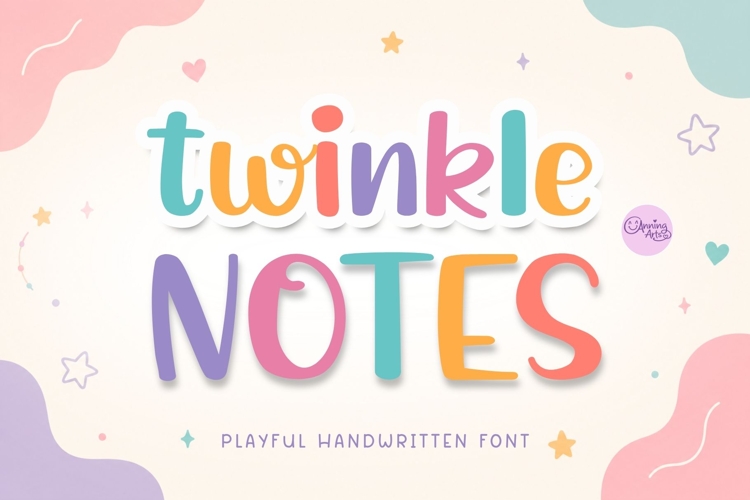
Twinkle Notes is a playful handwritten font featuring rounded letterforms, a clean handwritten style. Its simple, friendly appearance makes it easy to read while adding a fun and modern touch to any design.
The font includes uppercase, lowercase, numbers, punctuation, multilingual support, and is perfect for creating colorful typography for both print and digital projects.
Perfect for teacher resources, classroom decor, children's books, planners, journals, greeting cards, stickers, invitations, Cricut and Silhouette crafts, SVG projects, branding, social media graphics, tote bags, mugs, apparel, and printable products.